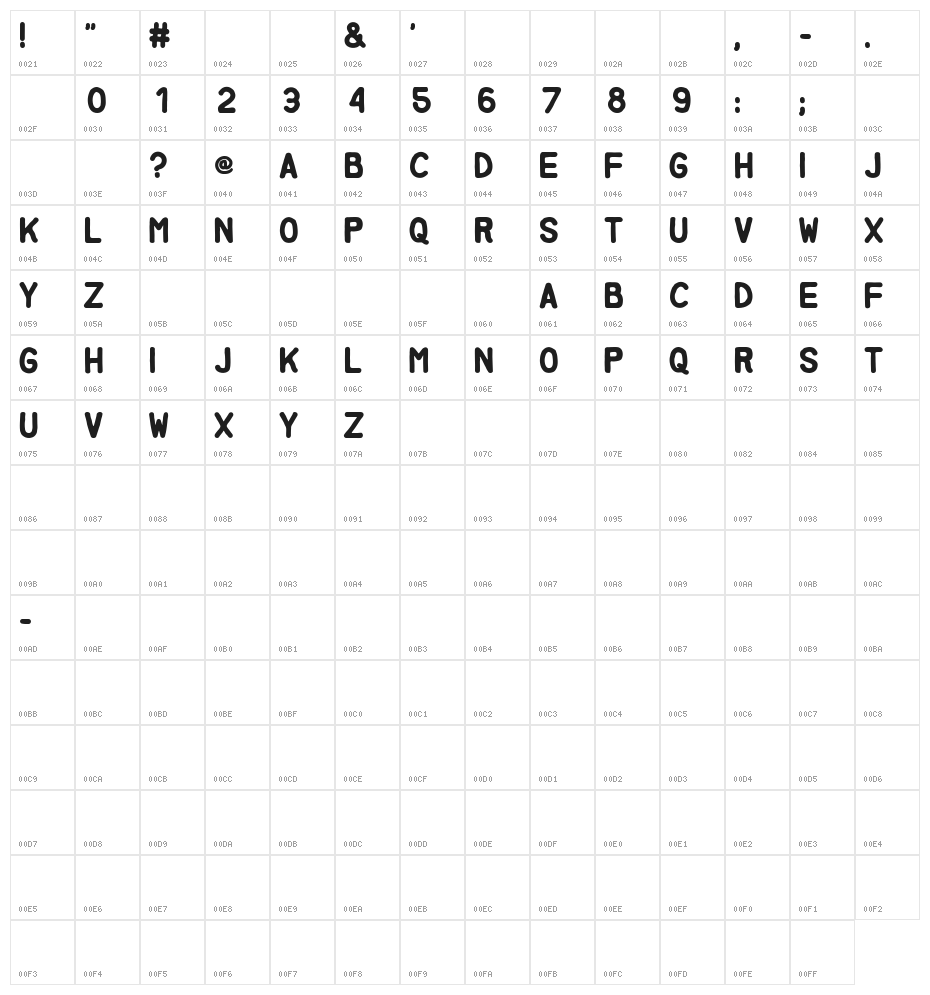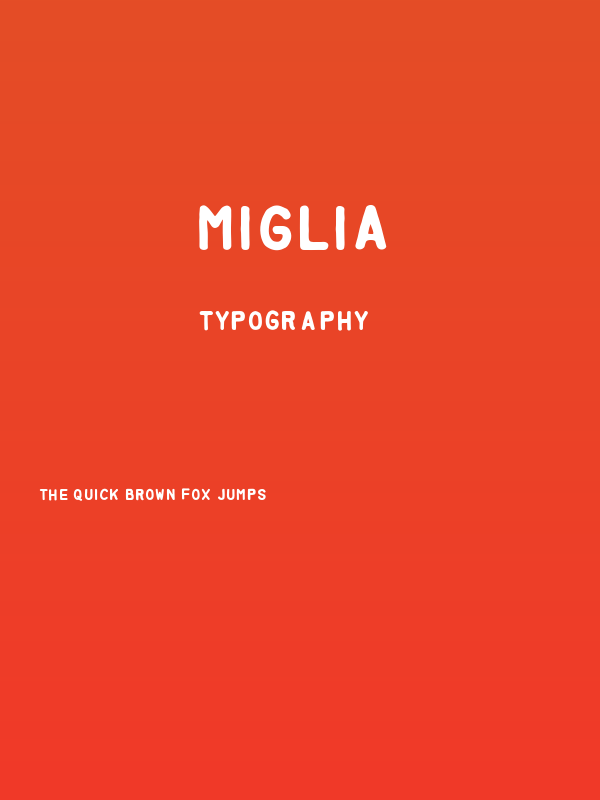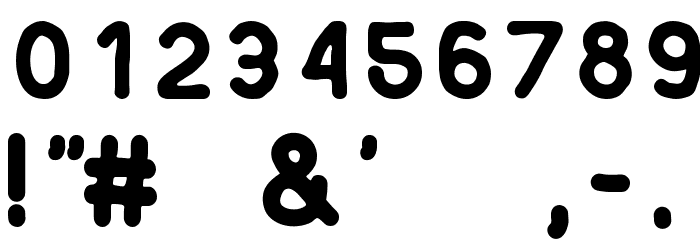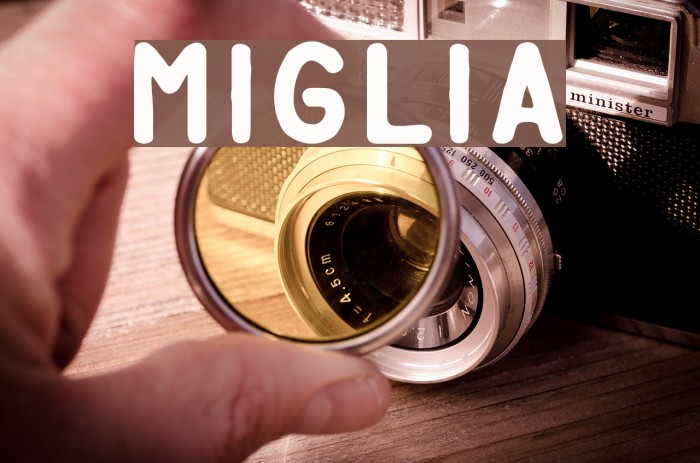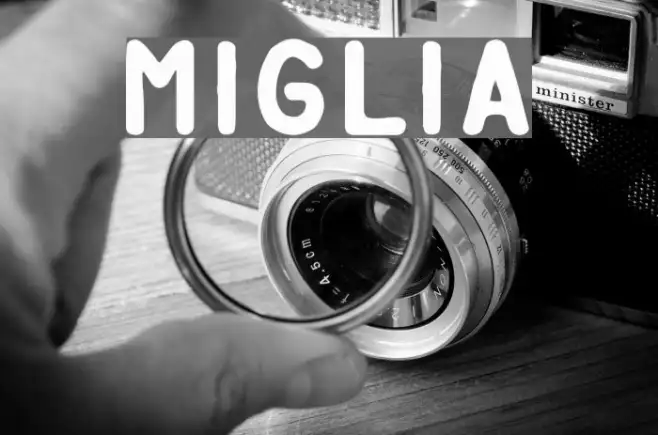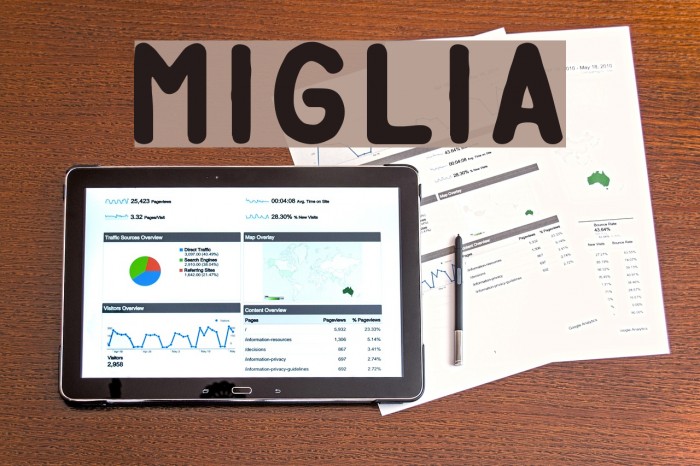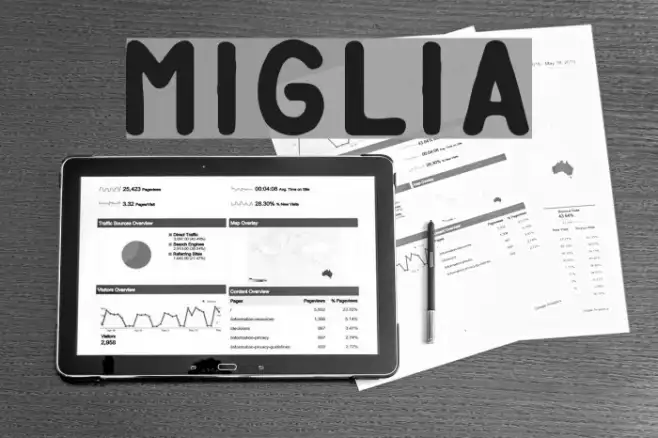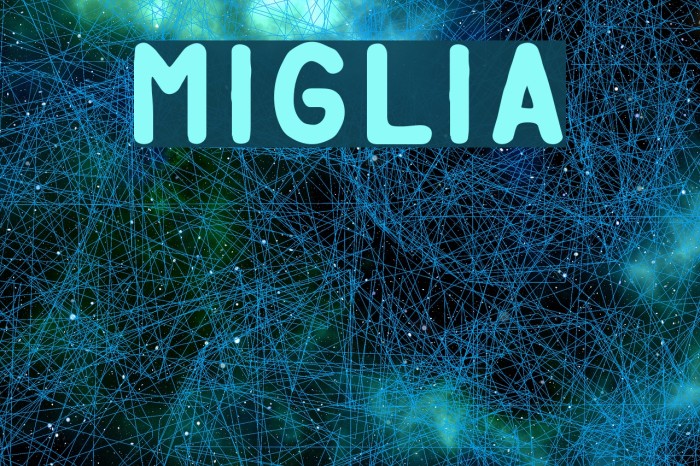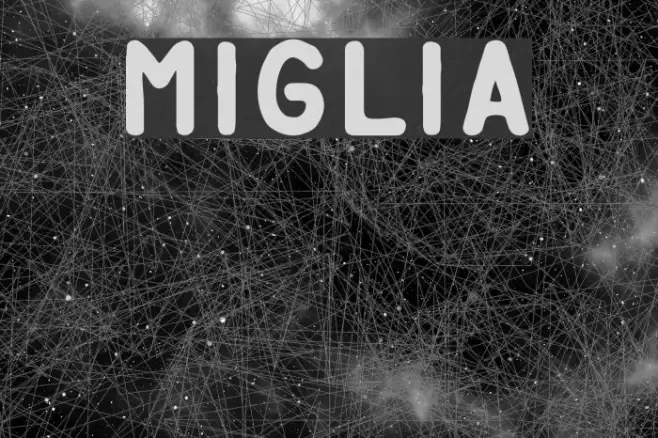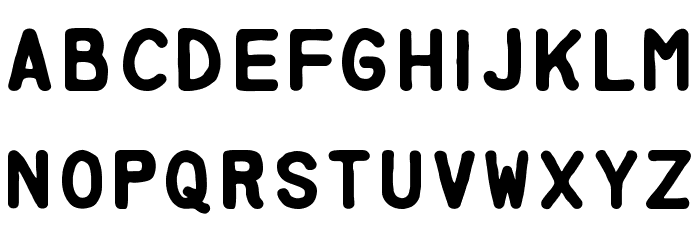
Miglia Font
Miglia Description
This font features a playful and rounded design, characterized by its bold and smooth curves. Each character maintains a consistent thickness, giving it a uniform appearance. The letters are slightly condensed, contributing to a compact and cohesive look. The font's rounded edges and lack of sharp angles create a friendly and approachable feel, making it suitable for casual and informal settings. The numerals and special characters follow the same design principles, ensuring a harmonious overall style. This font is ideal for projects that require a touch of whimsy and warmth.
| Overall Style | Playful, Friendly |